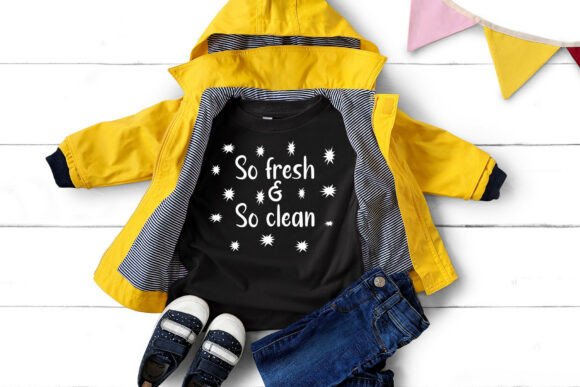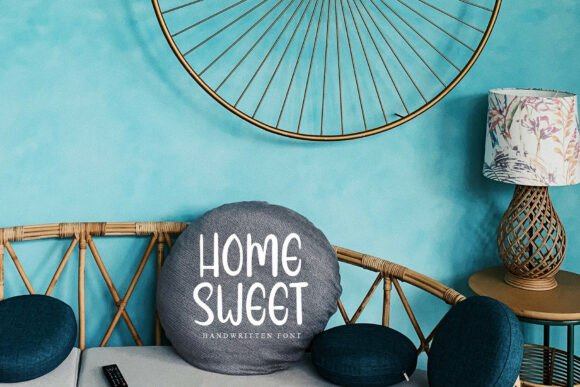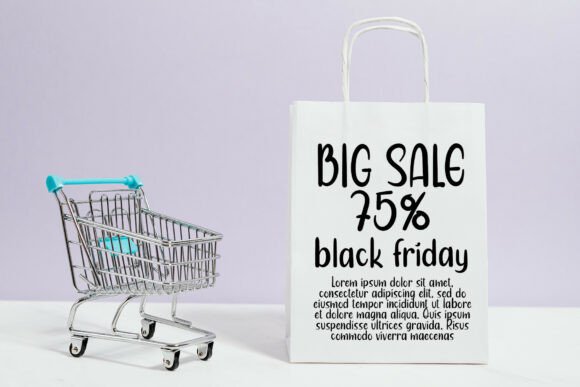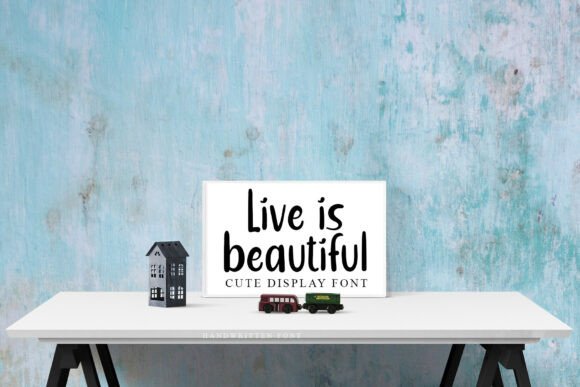
Introducing Chips Font: Elevate Your Designs with Elegance
In the world of design, typography plays a crucial role in conveying messages, evoking emotions, and creating lasting impressions. For designers, crafters, and creative enthusiasts, finding the perfect font can be a daunting task. However, if you’re looking for a unique and elegant font to elevate your projects, look no further than Chips Font. Specially designed with a professional hand touch, Chips Font is the perfect addition to your typographic arsenal.
What Makes Chips Font Stand Out?
Chips Font is crafted with meticulous attention to detail, ensuring that every letter, curve, and line is a masterpiece. This font is not just a collection of characters; it’s an experience. With its elegant and refined aesthetic, Chips Font is perfect for a wide range of applications, from wedding invitation cards and birthday greetings to school assignments and important events.
Whether you’re a designer working on a client’s project or a crafter creating handmade cards and gifts, Chips Font is an excellent choice. Its versatility and charm make it suitable for:
• Wedding invitation cards and party announcements
• Birthday greetings and celebration cards
• School assignments and projects
• Important events and formal invitations
• Creative ideas and DIY projects
Key Features of Chips Font
So, what makes Chips Font so special? Here are some of its key features:
• Professional Hand Touch: Chips Font is designed with a professional hand touch, giving it a unique and elegant feel.
• Glyphs and Characters: The font is carefully crafted to include all glyphs and characters, ensuring that you have everything you need to create stunning designs.
• High-Quality: The font is designed to deliver high-quality results, ensuring that your designs look crisp and professional.
Tips for Using Chips Font
To get the most out of Chips Font, here are some tips to keep in mind:
• Experiment with Sizes: Chips Font looks great in various sizes, so don’t be afraid to experiment and find the perfect fit for your design.
• Play with Colors: The font’s elegant design makes it suitable for a wide range of colors and color combinations.
• Mix and Match: Combine Chips Font with other fonts and design elements to create unique and eye-catching designs.
Why Choose Chips Font?
With so many fonts available, why choose Chips Font? Here are just a few reasons:
• Unique and Elegant: Chips Font offers a unique and elegant aesthetic that’s sure to elevate your designs.
• Professional Quality: The font is designed with professional quality in mind, ensuring that your designs look polished and refined.
• Versatile: Chips Font is suitable for a wide range of applications, making it a great addition to your font library.